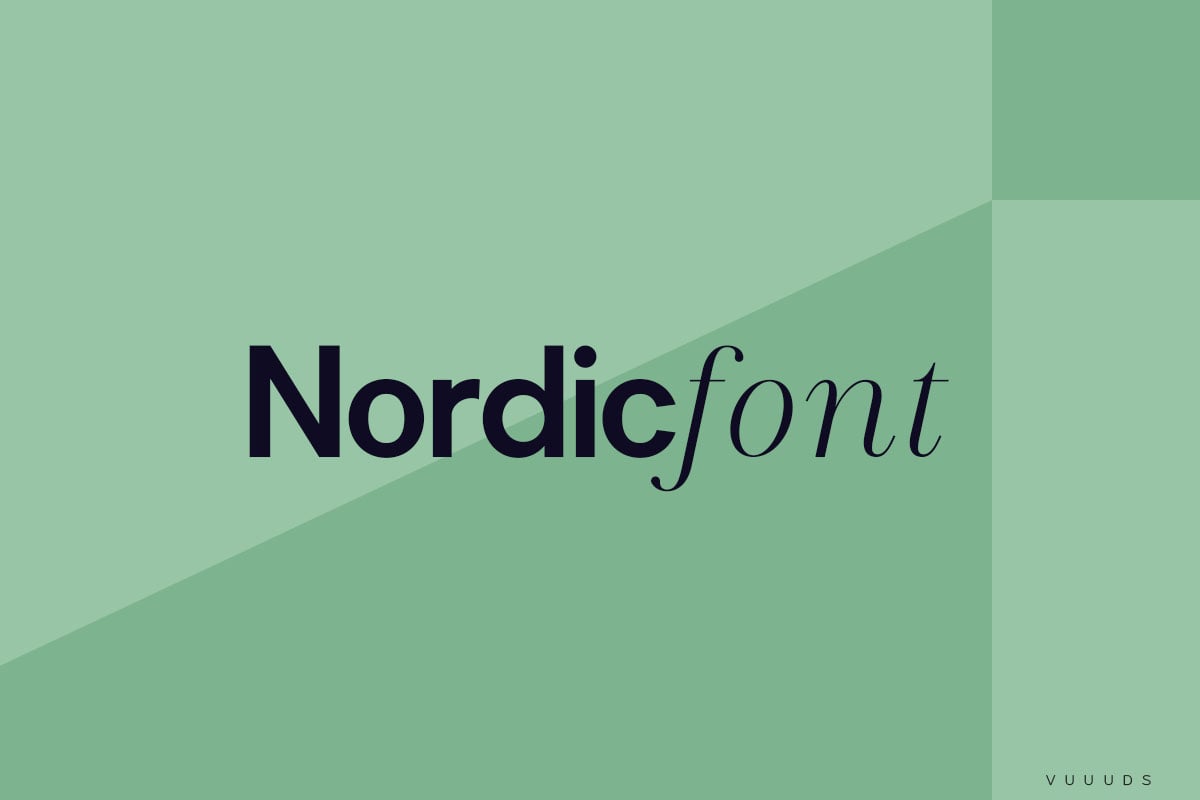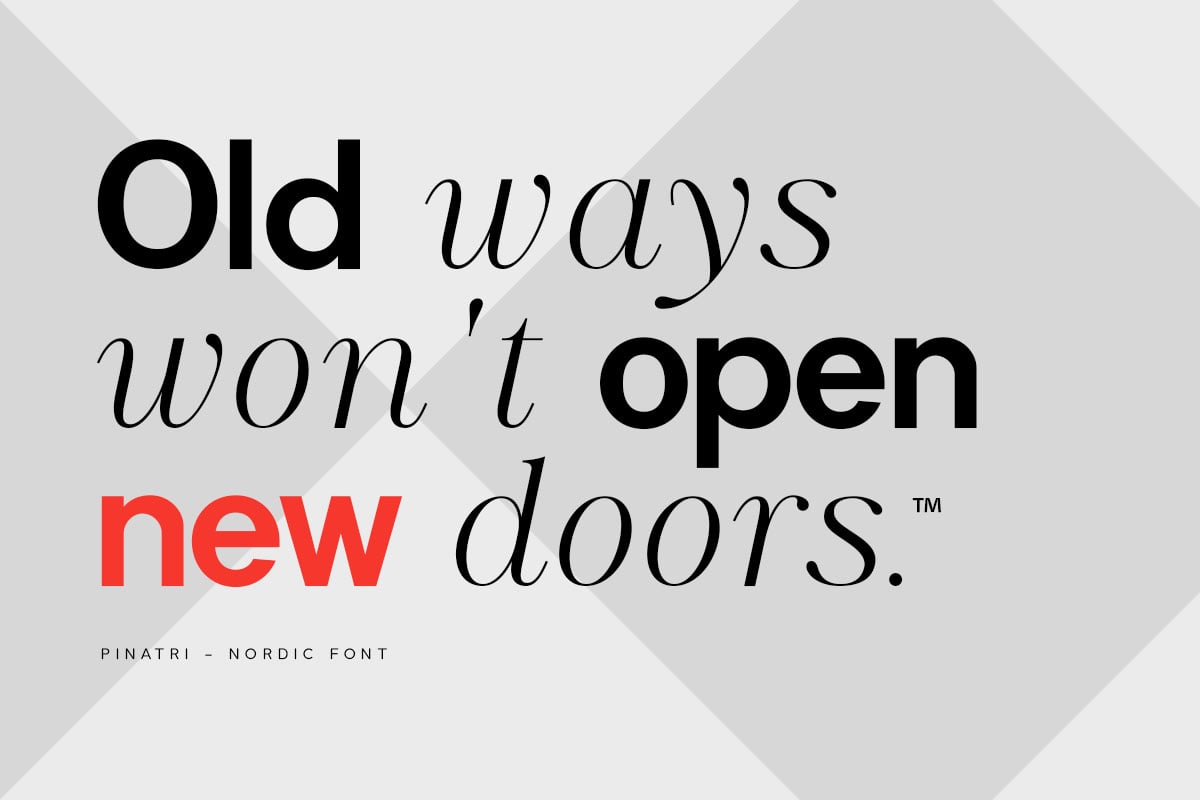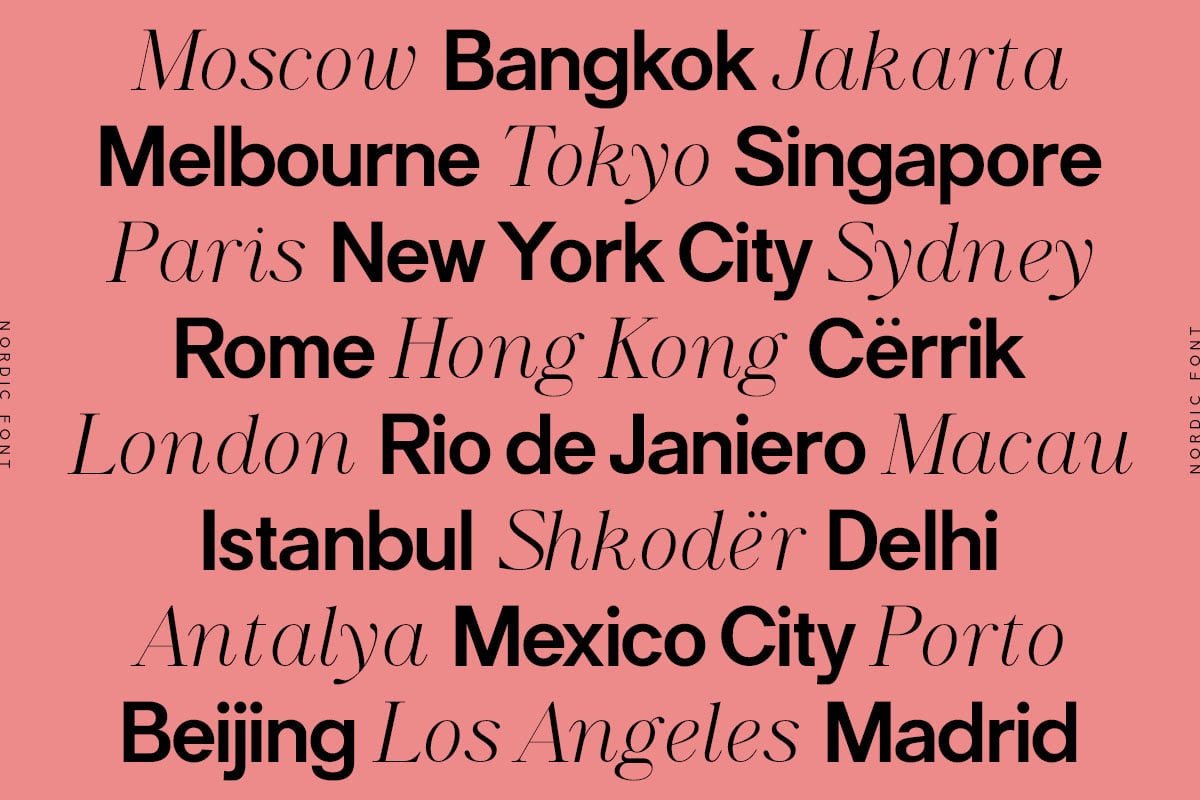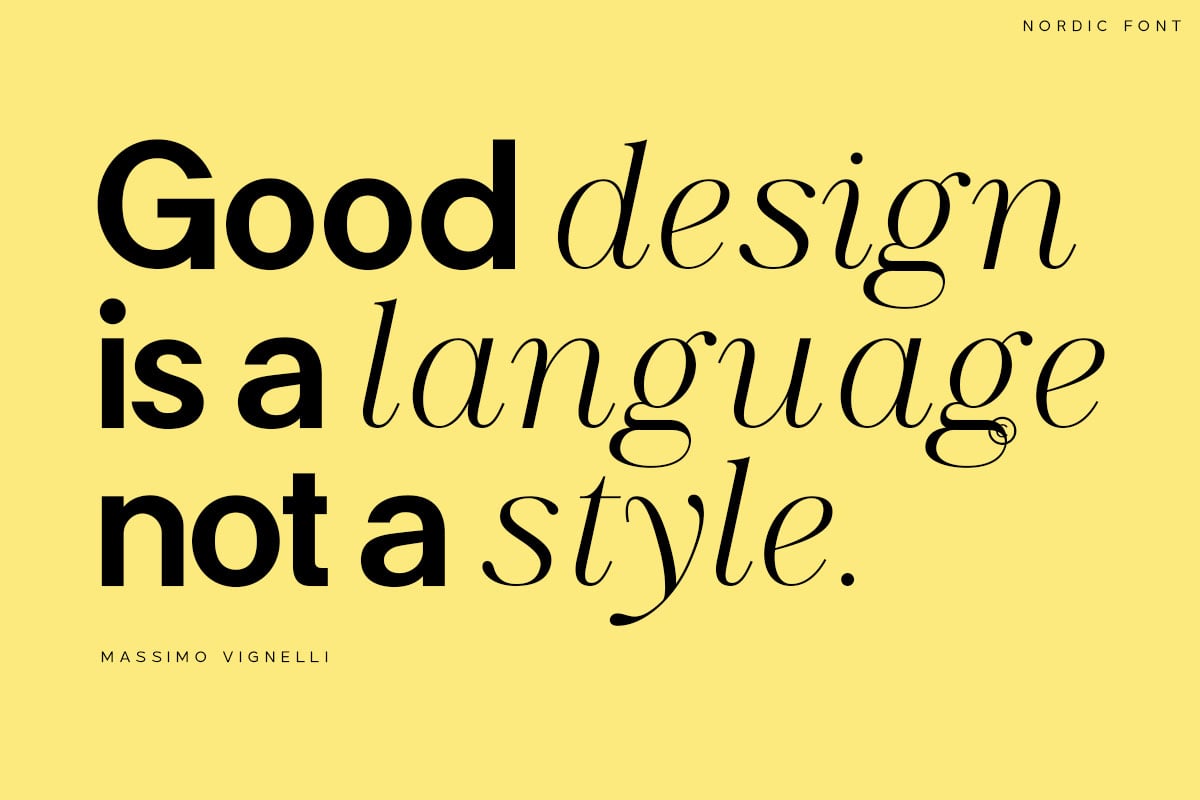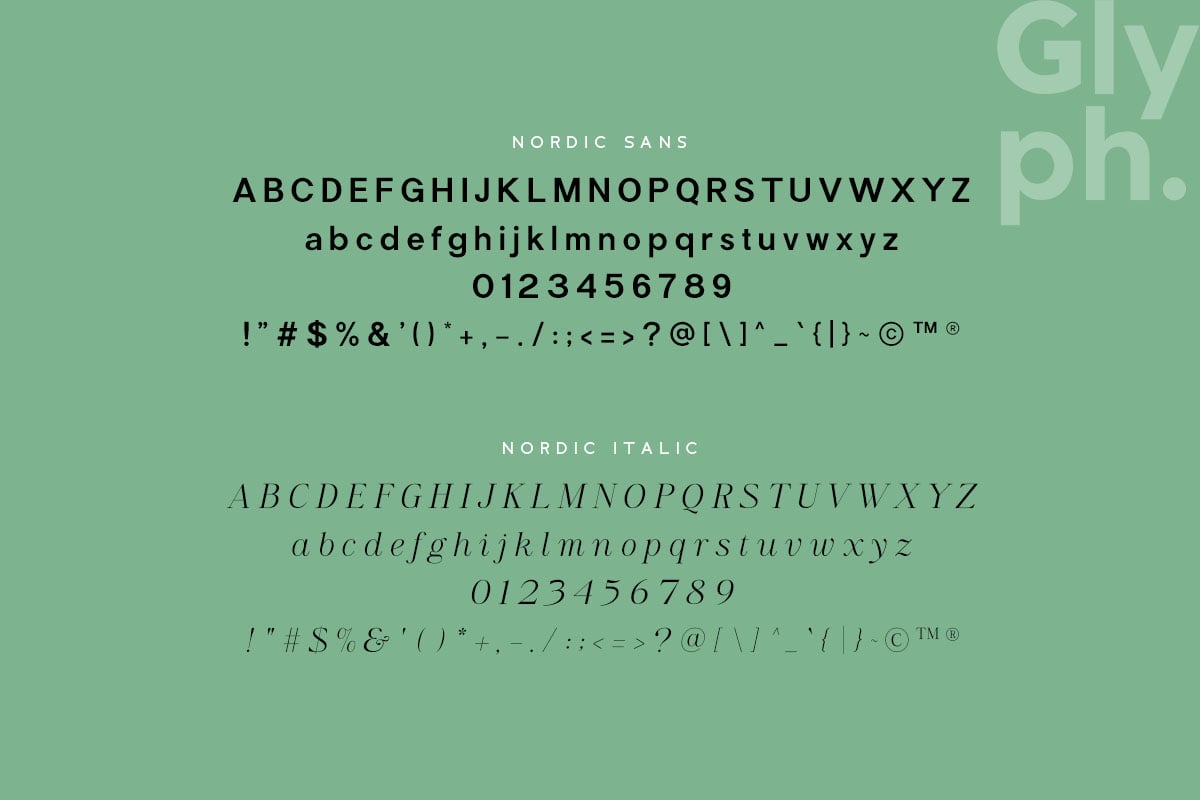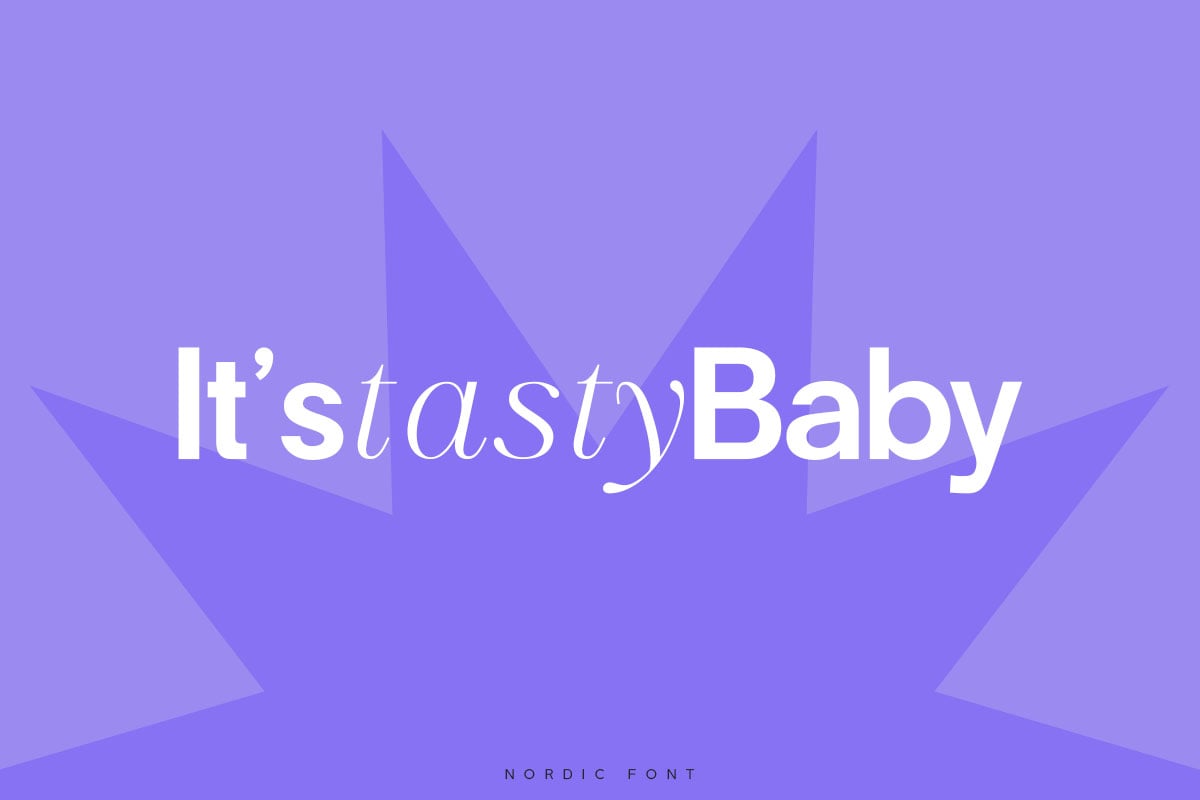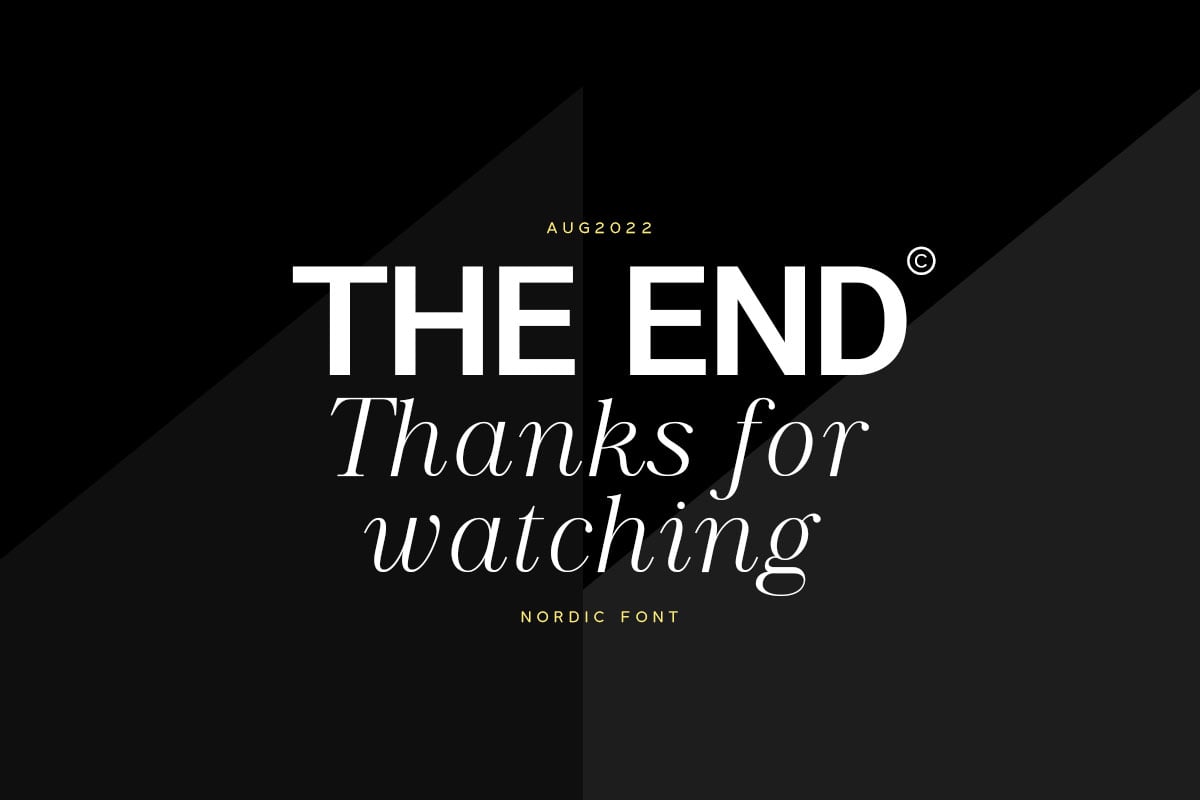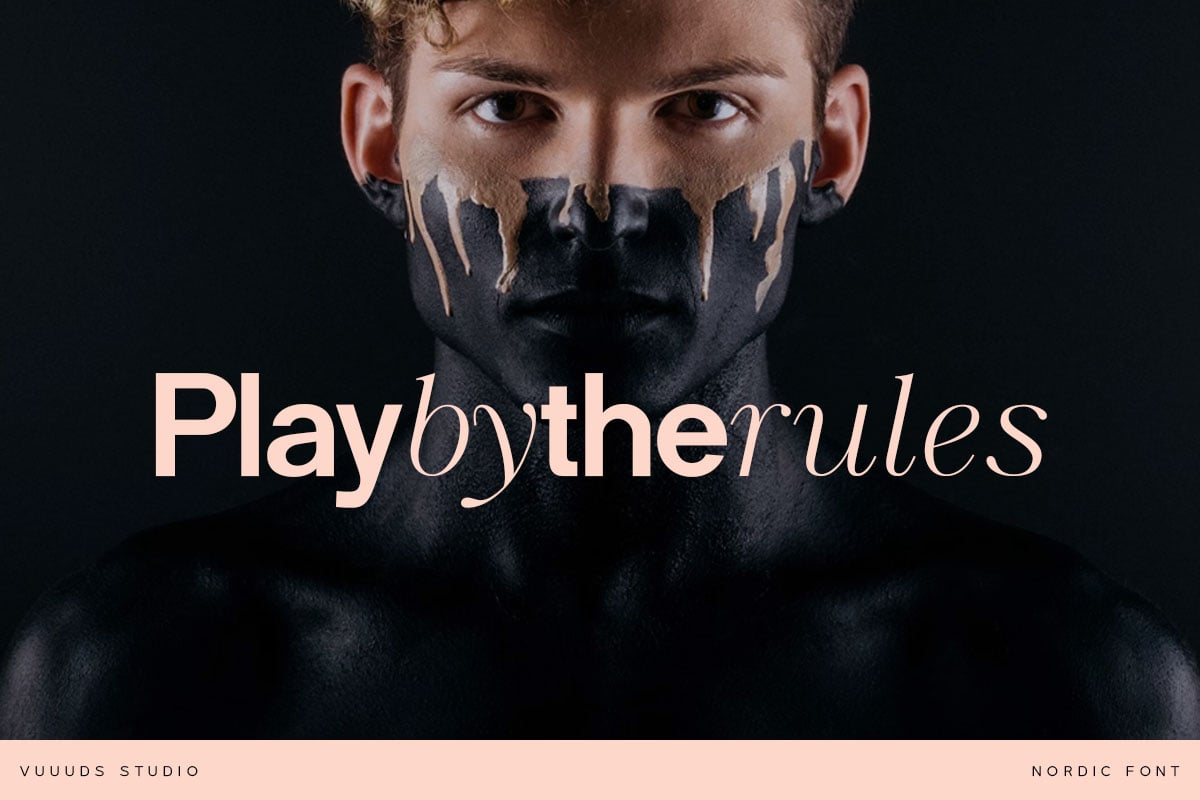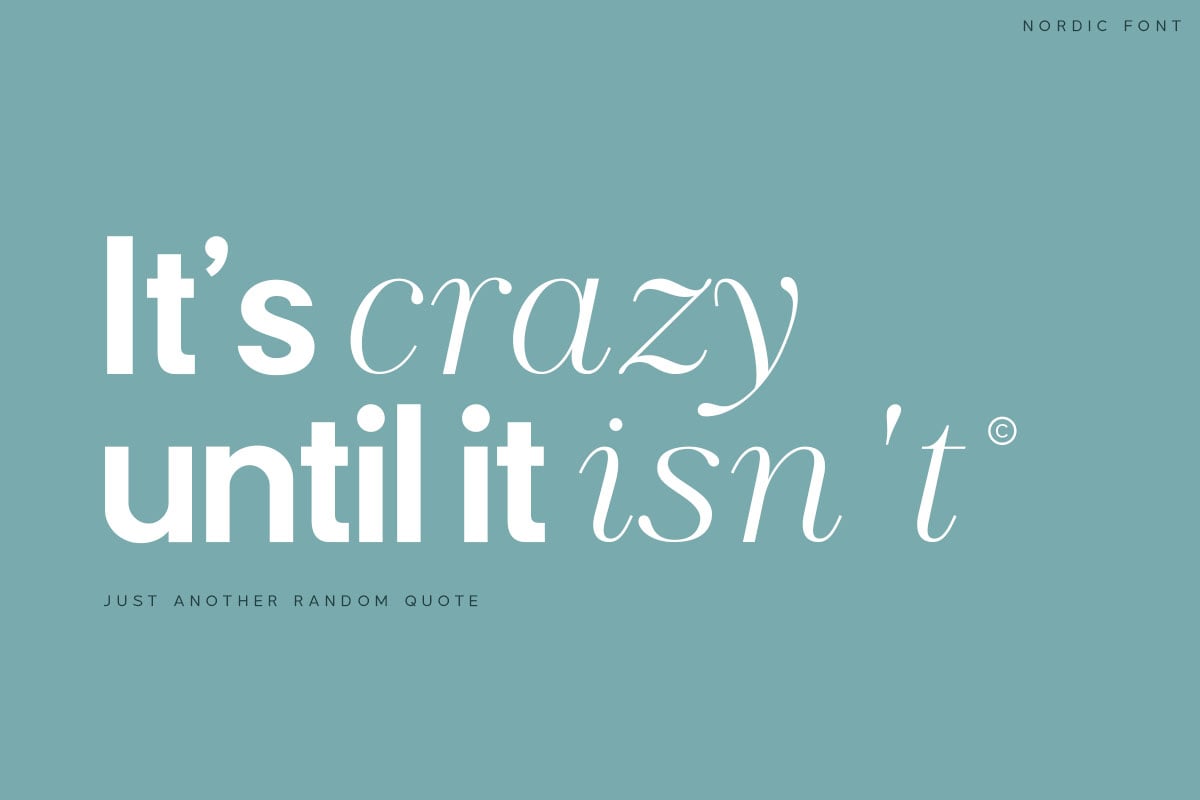
Nordic Font
Introducing Nordic Font!
Nordic is modern font came with sans serif and serif styles. every single letters have been carefully crafted.
Foreign languages support: ÀÁÂÃÄÅÆÇÈÉÊËÌÍÎÏÐÑÒÓÔÕÖØÙÚÛÜÝàáâãäåæçèéêëìíîïðñòóôõöøùúûüýÿ